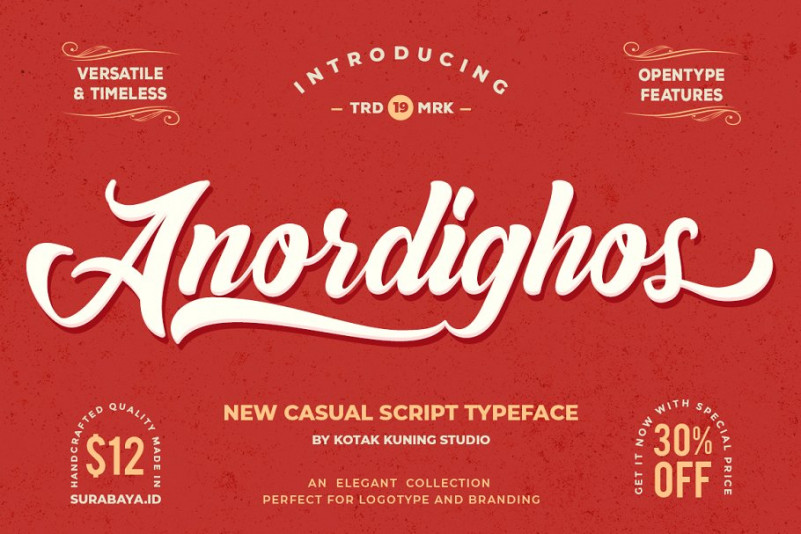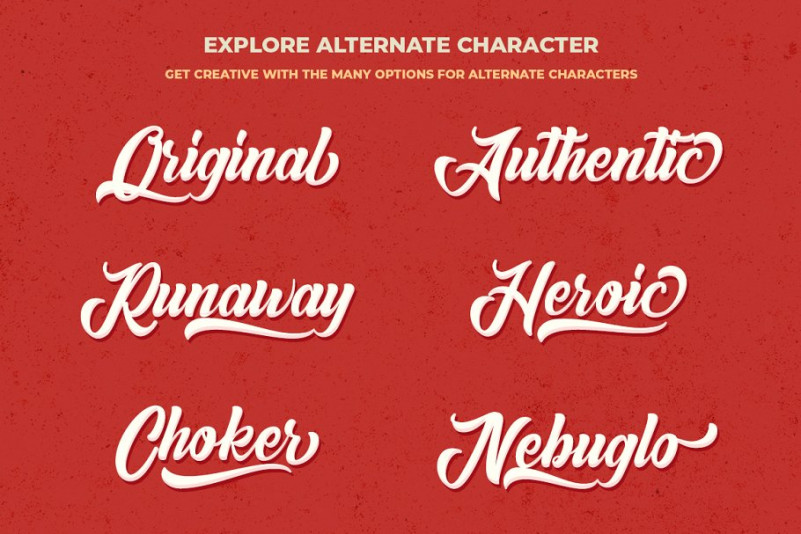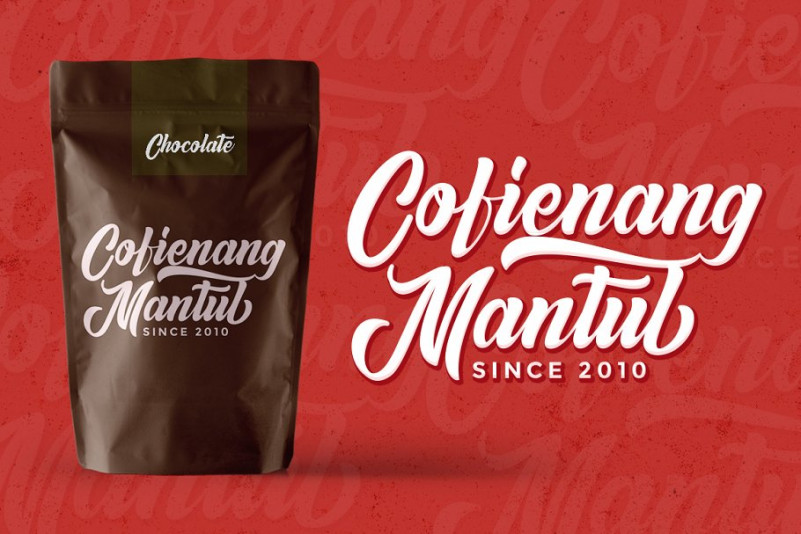
Anordighos Calligraphy Font
A casual script typeface and combination with Hand Lettering style which gives more personal touch and makes the font looks being customized.
This font is suitable to use as a logotype, product designs, label, watermark, social media posts, apparel, invitation, signboard, sport club, motor/car, special events or anything that need handwriting taste.